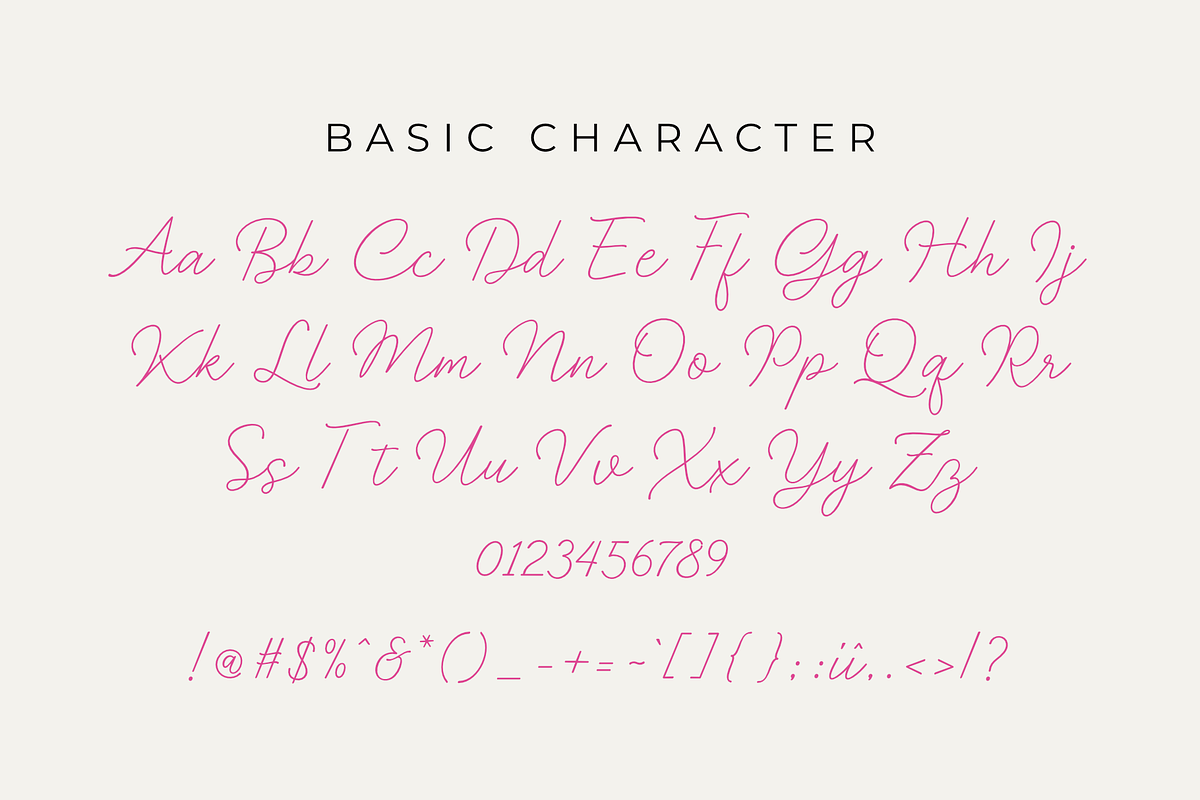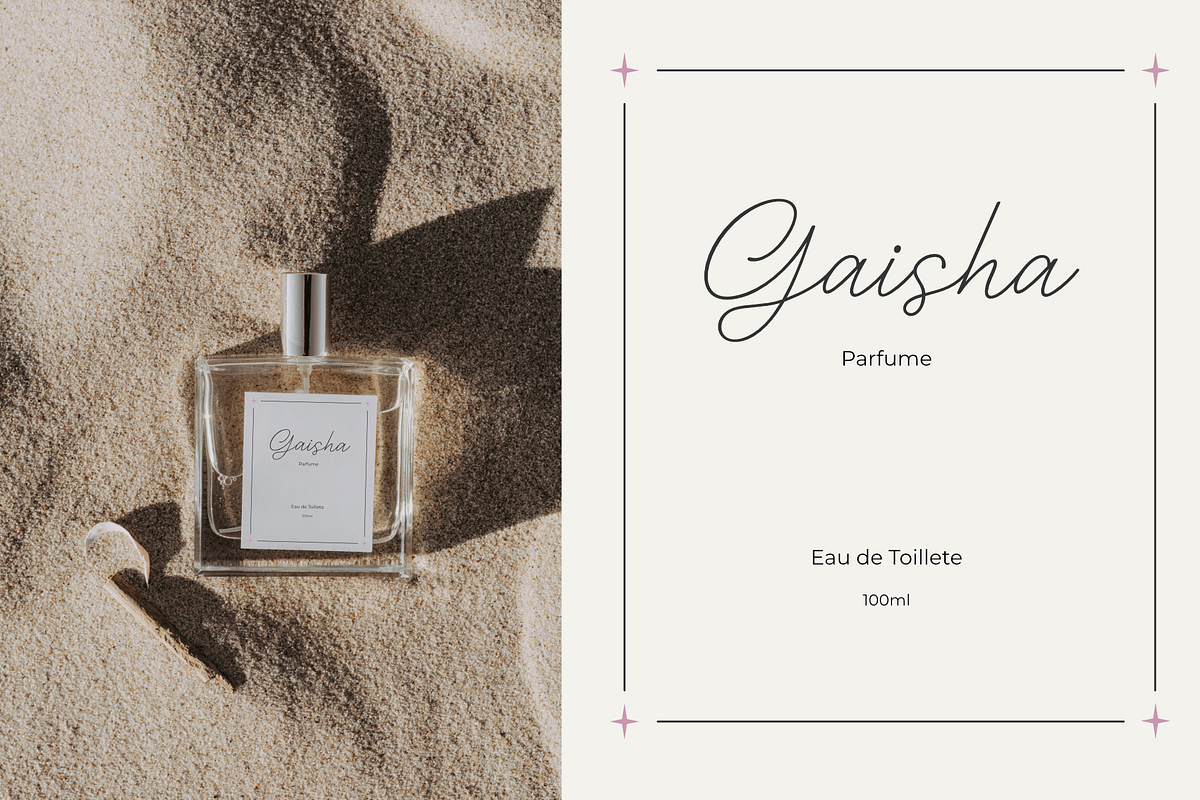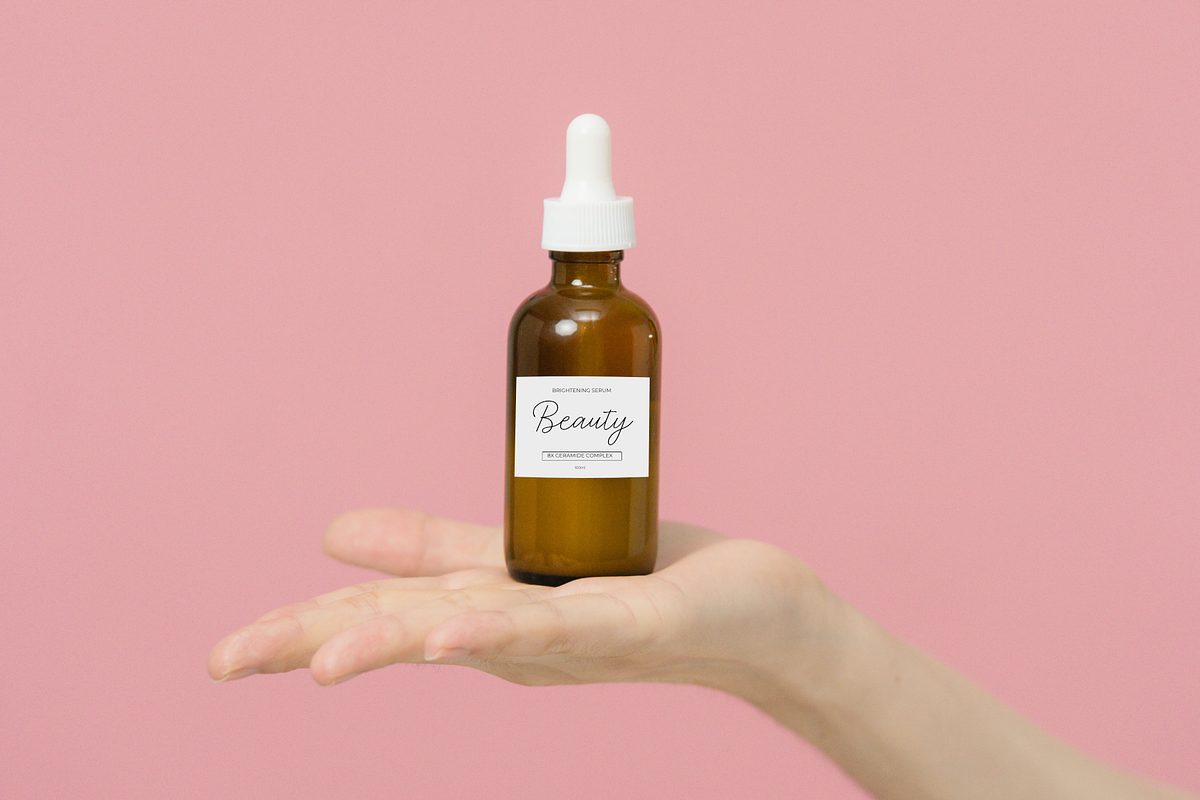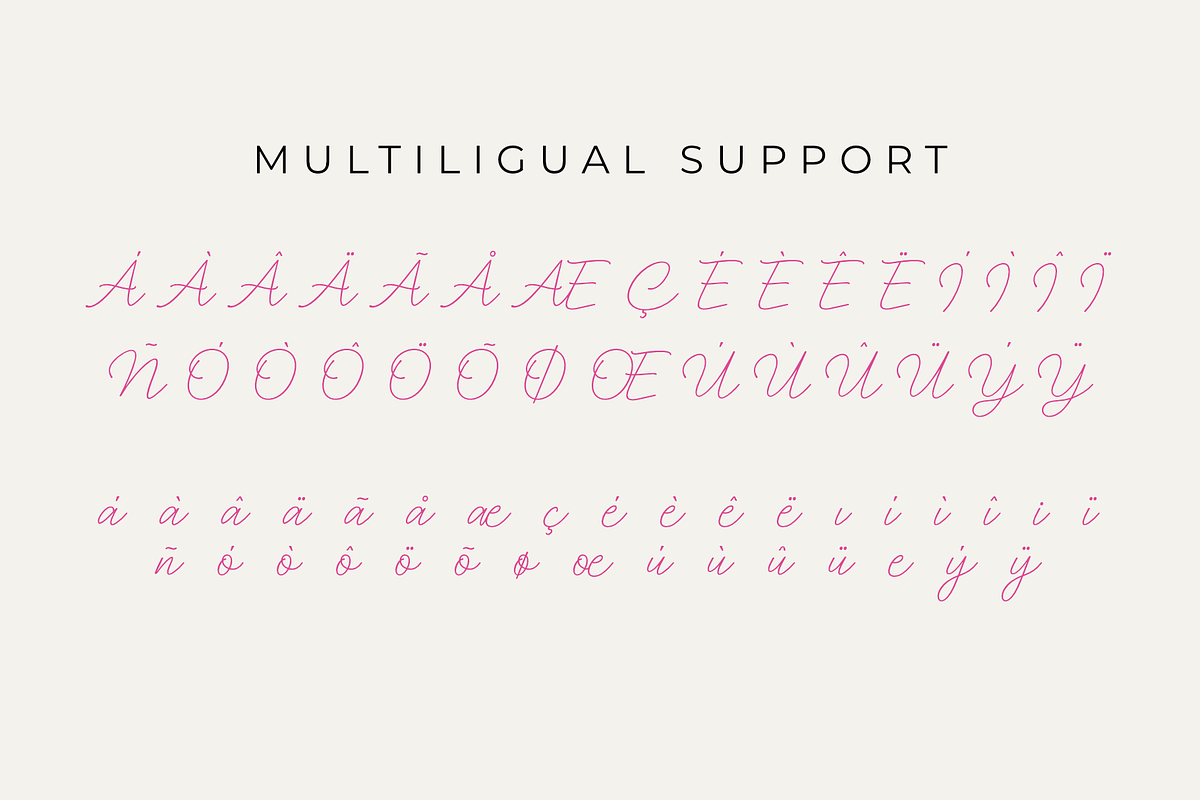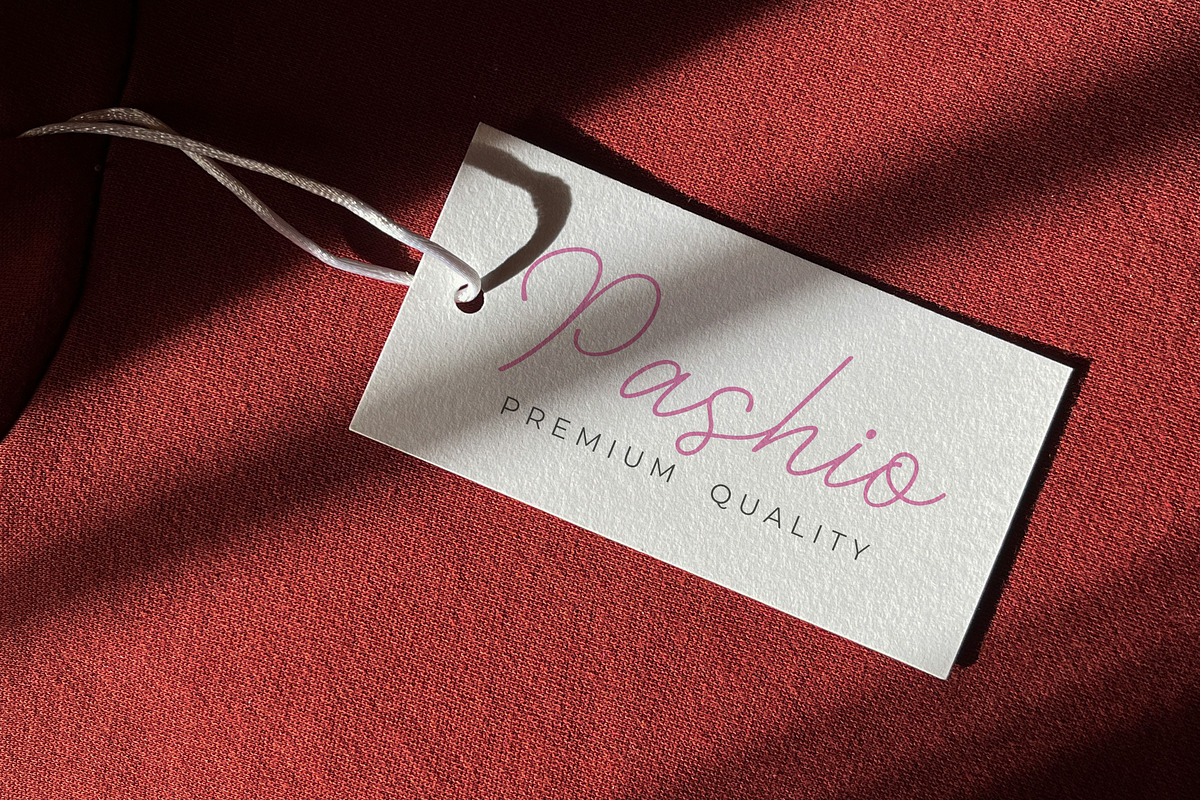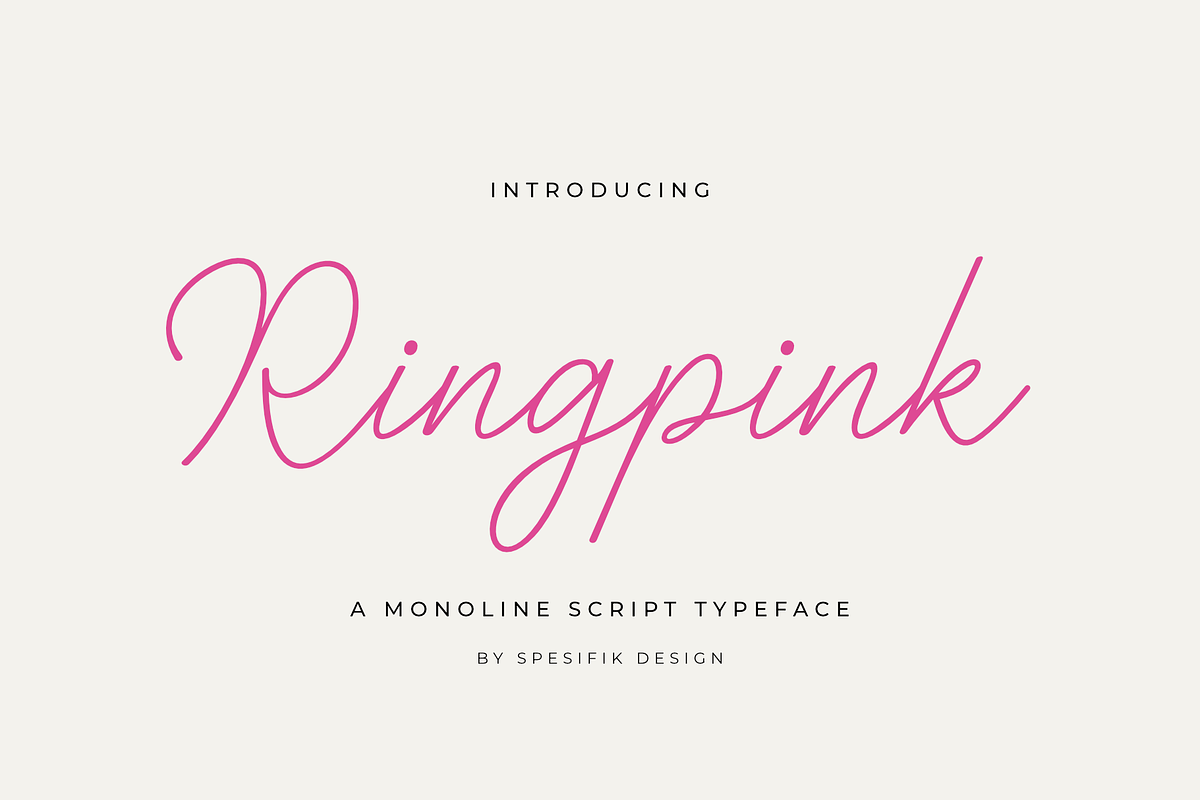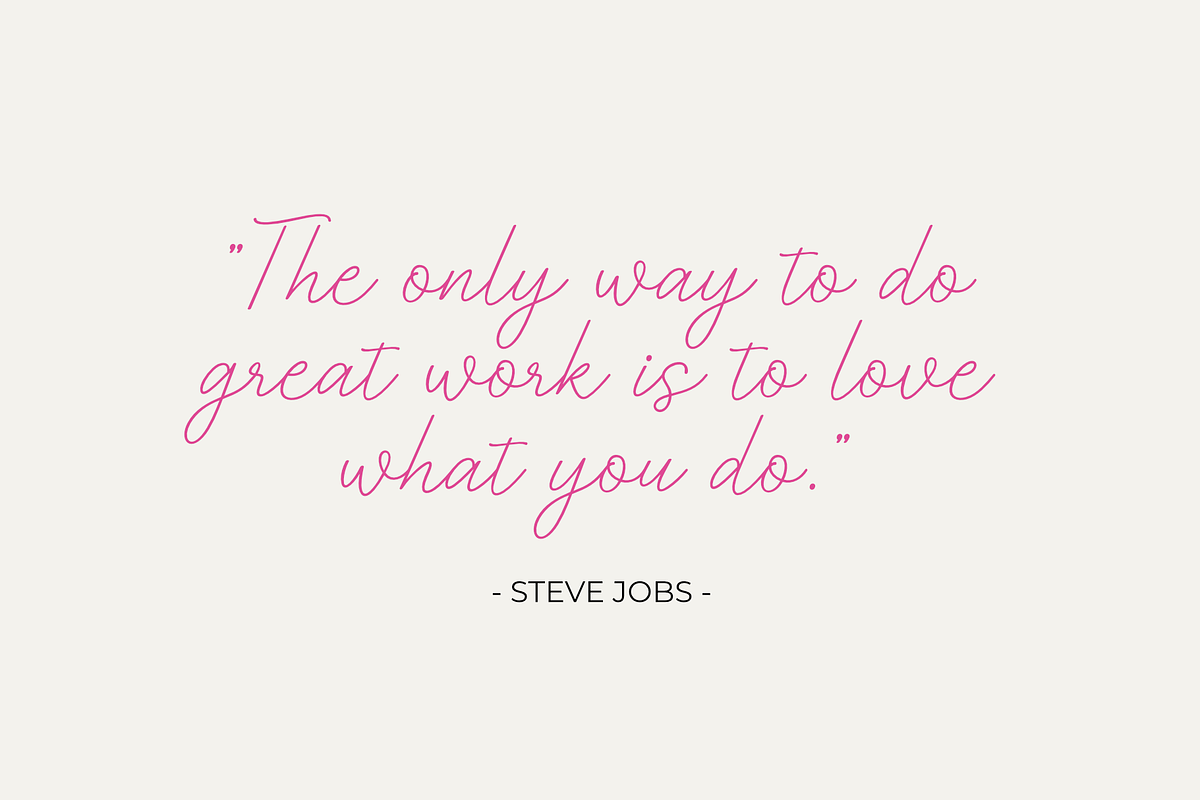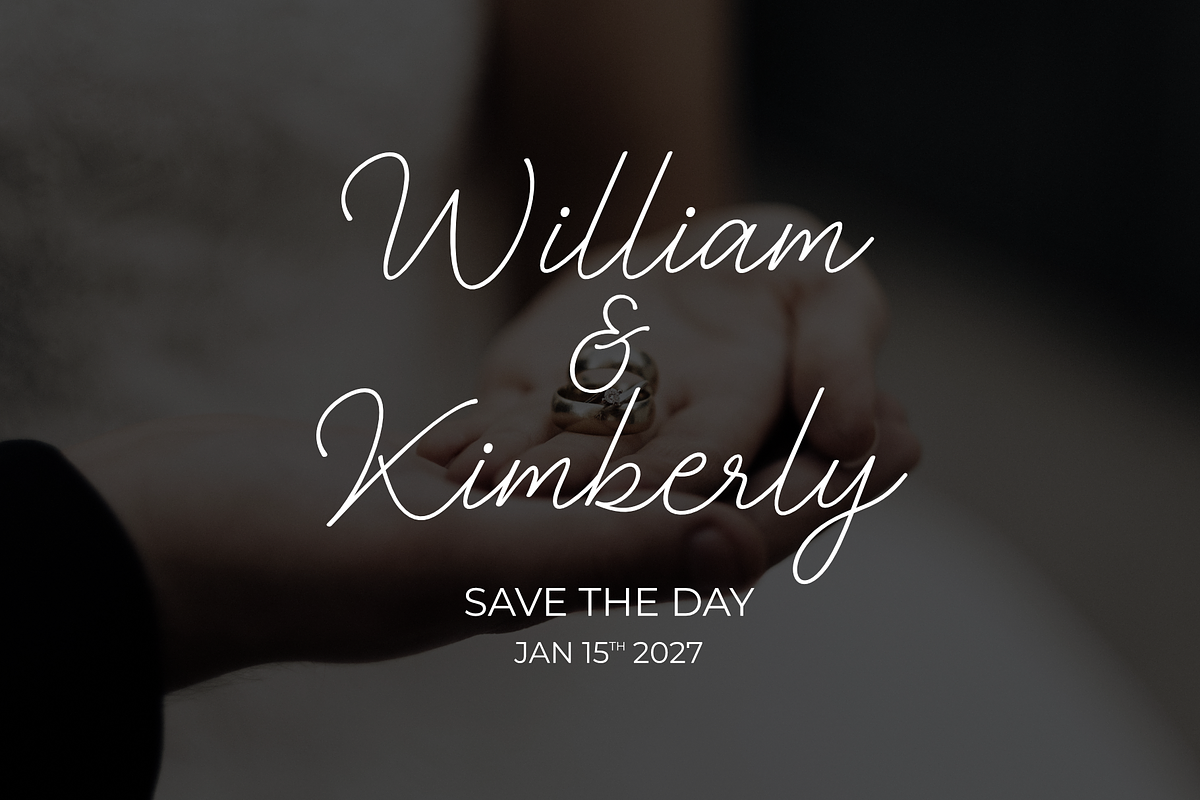
Ringpink - Monoline Script Font
Ringpink - Monoline Script Font delivers a strong, versatile visual character through a balanced blend of aesthetics and high legibility. Every curve is precisely crafted to create a neat, consistent, and captivating look across various media. Equipped with well-balanced proportions along with ligature features and alternate characters, this font offers creative freedom for designers. The final result feels dynamic, uniquely distinctive, and professional, perfectly complementing a wide range of design concepts.